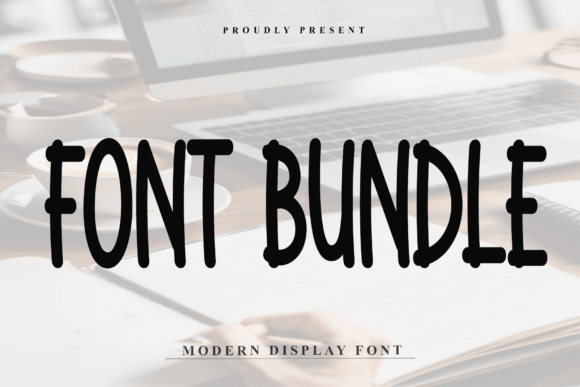
Meet Your New Design BFF: Bundle Font
Remember the rush of excitement when you stumble upon the perfect font for a project? It’s like finding a missing puzzle piece that brings everything together. That’s exactly what Bundle Font is – a game-changing, Modern Display font designed to capture attention and convey a playful, youthful vibe.
As a designer, you’re constantly on the lookout for versatile fonts that can elevate your designs and communicate your message effectively. Bundle Font is here to save the day! This unique typeface boasts a “knobby” aesthetic, making it perfect for headlines, posters, and any design that requires energy and a modern twist. With its high legibility and thick, uniform weight, Bundle Font is a valuable addition to any designer’s toolkit.
Whether you’re working on a child-friendly branding project or creating bold editorial headers, Bundle Font is sure to be your new go-to font. Its fun, youthful energy is simply irresistible, and pairing it with bright, high-contrast colors will make your typography the hero of the design.
Designer Review: Bundle Font
Overall, I’m impressed with the versatility of the Bundle Font. ✨ It’s a modern sans-serif typeface that comes with a wide range of weights and styles, making it suitable for various design applications. ✨ The font is highly legible, even at small font sizes, which is a major plus for digital design.
The Bundle Font is also quite comprehensive, offering a wide range of characters and glyphs, including ligatures and swashes. ✨ This makes it a great choice for creative projects, such as branding and editorial design.
Overall, I think the Bundle Font is a great choice for designers who want a modern, versatile font that can be used in a variety of applications. However, it may not be the best fit for every project, and users should be aware of its limitations.